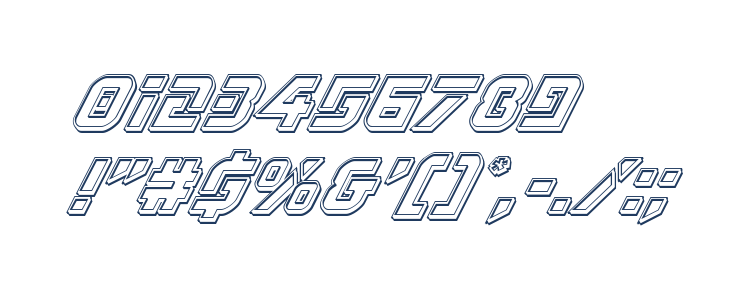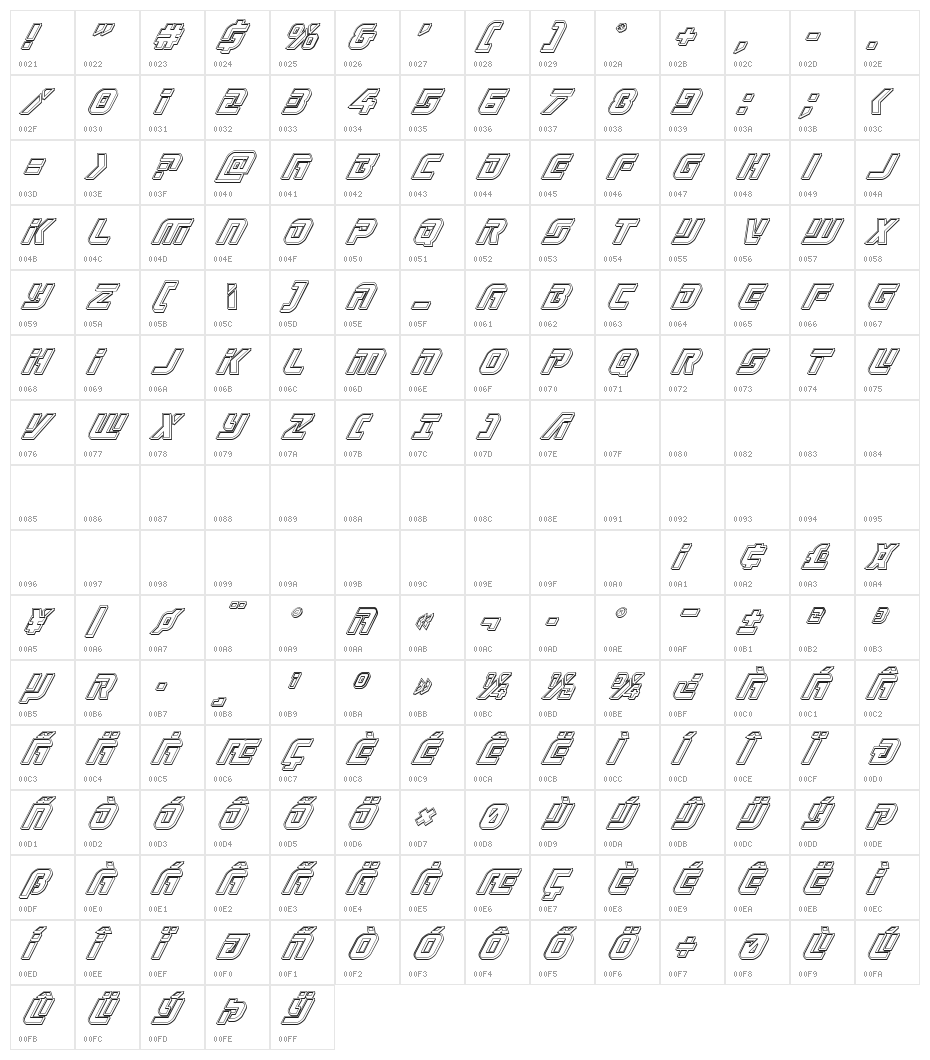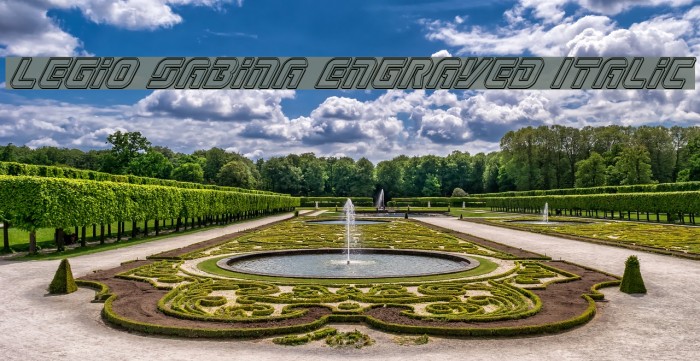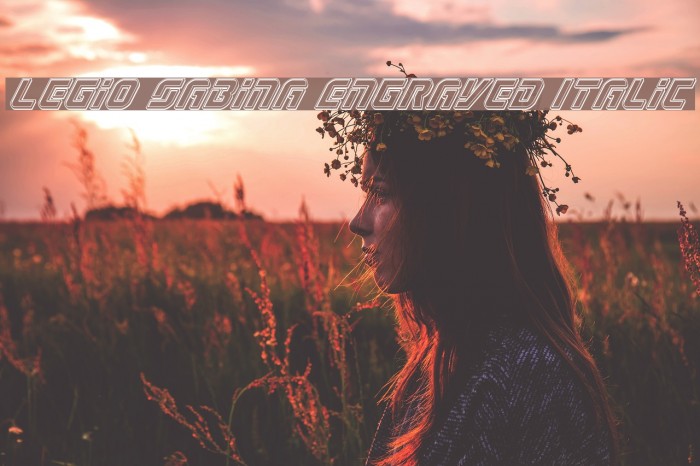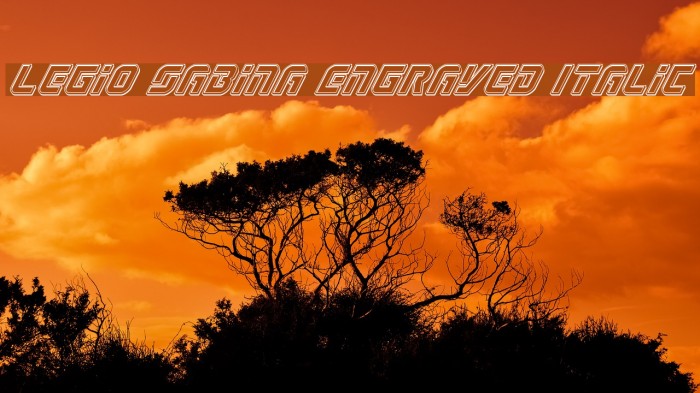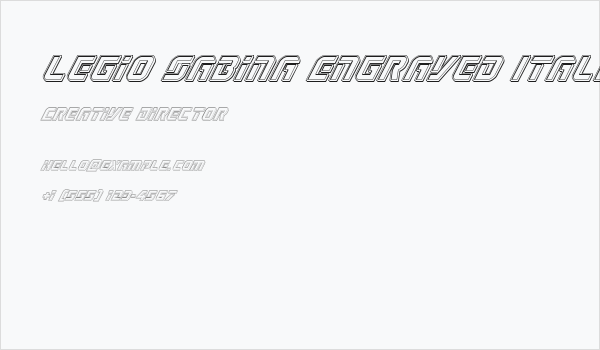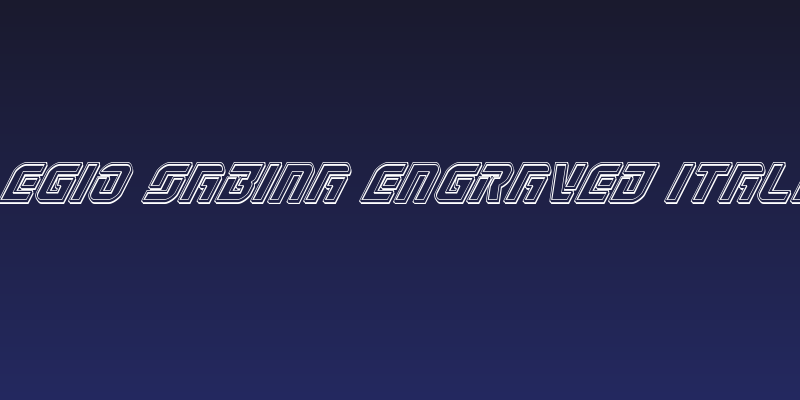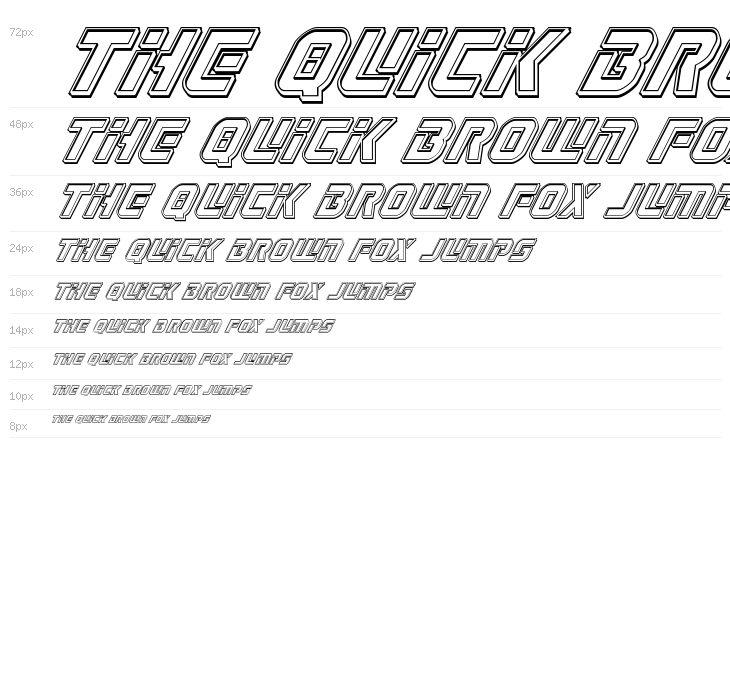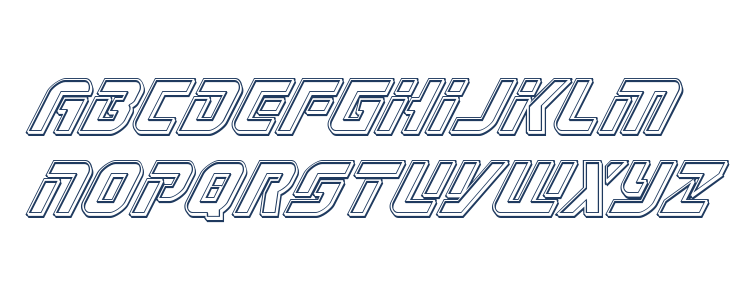
Legio Sabina Engraved Italic Font
Legio Sabina Engraved Italic Description
This font features a bold, engraved style with a distinct italic slant, giving it a dynamic and modern appearance. The characters are outlined, creating a three-dimensional effect that adds depth and interest. The uppercase and lowercase letters maintain a consistent style, with sharp angles and clean lines. The numerals and special characters follow the same design principles, ensuring uniformity across all glyphs. This font's unique engraved look makes it stand out, while the italic angle adds a sense of motion and energy.
| Proposed Projects | Ideal for branding, posters, and headlines where a modern, dynamic look is desired. |